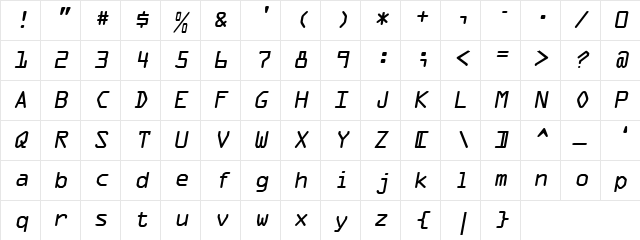
OCR A is a composed and adaptable typeface that performs quietly and consistently across a wide range of design contexts. The slanted form adds forward momentum and visual energy.
Pro Tip: Use OCR A for emphasis, pull quotes, and subheadings where its slanted energy can add rhythm to the layout.